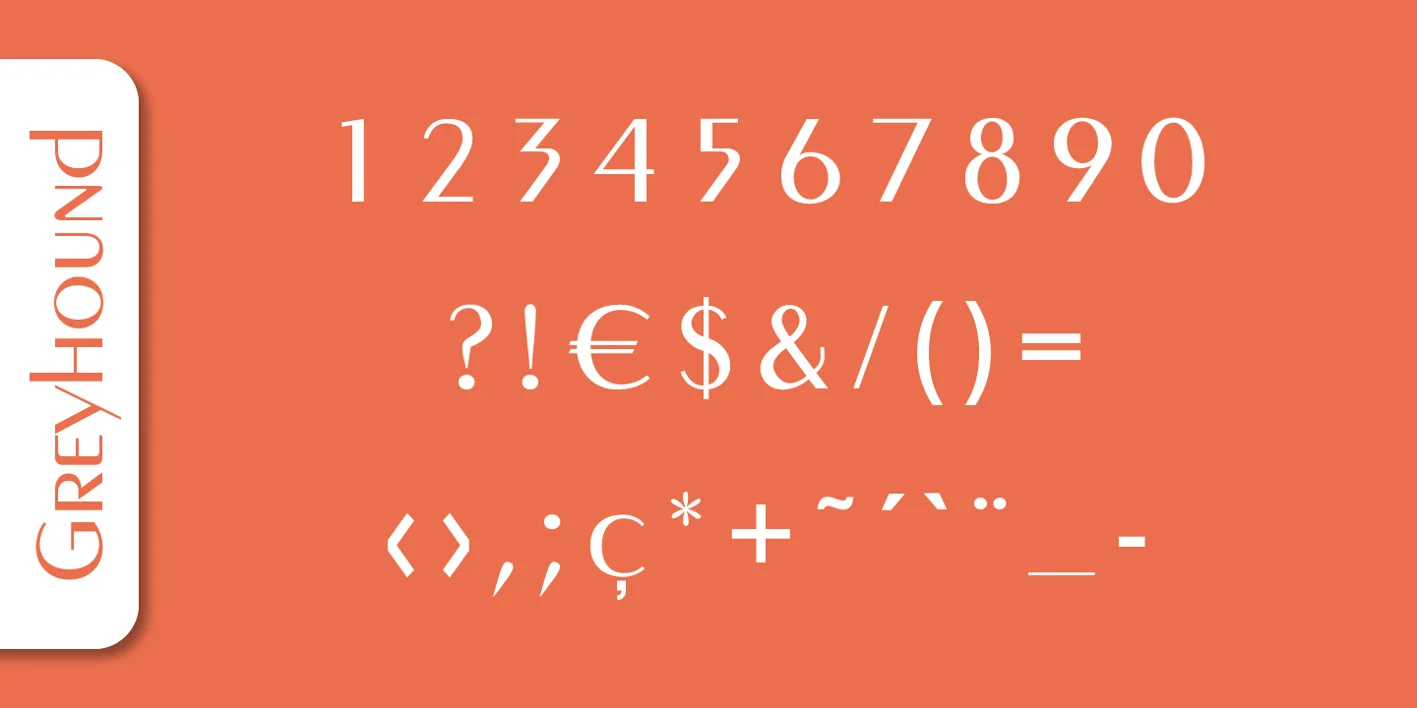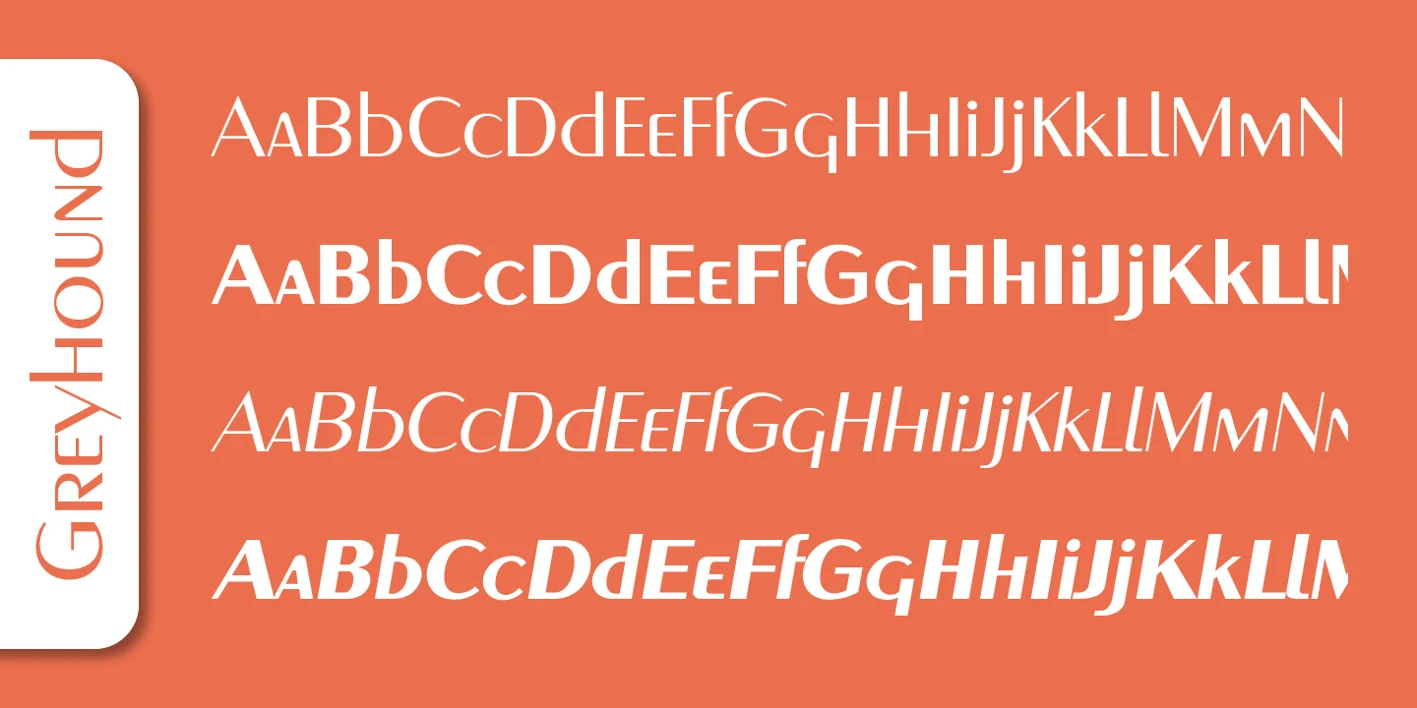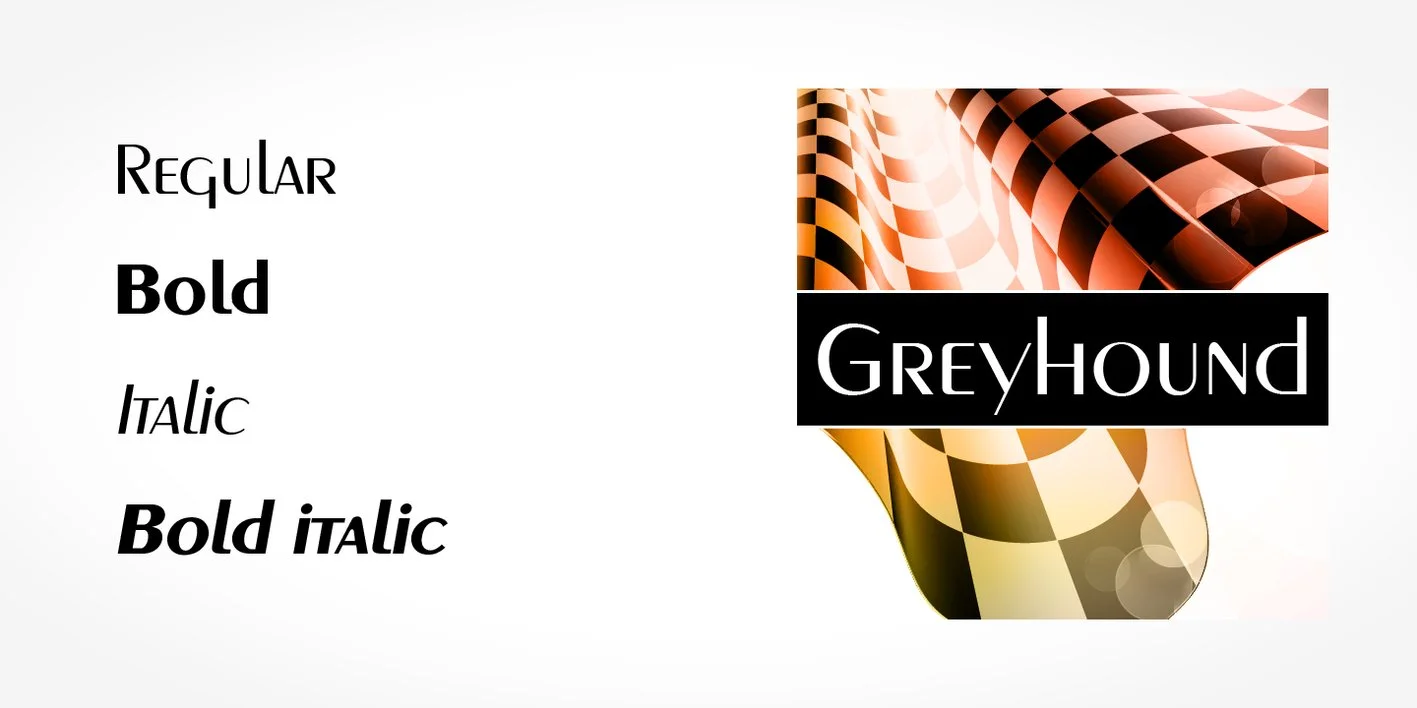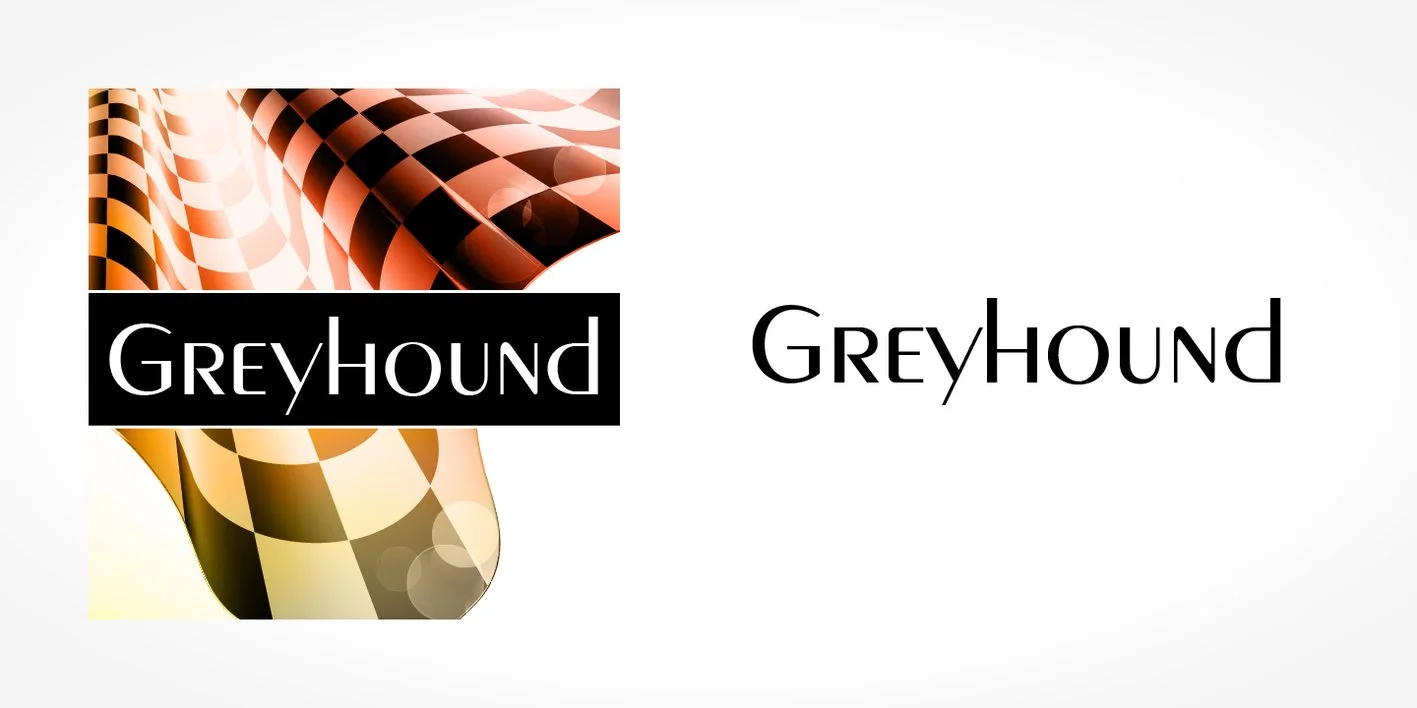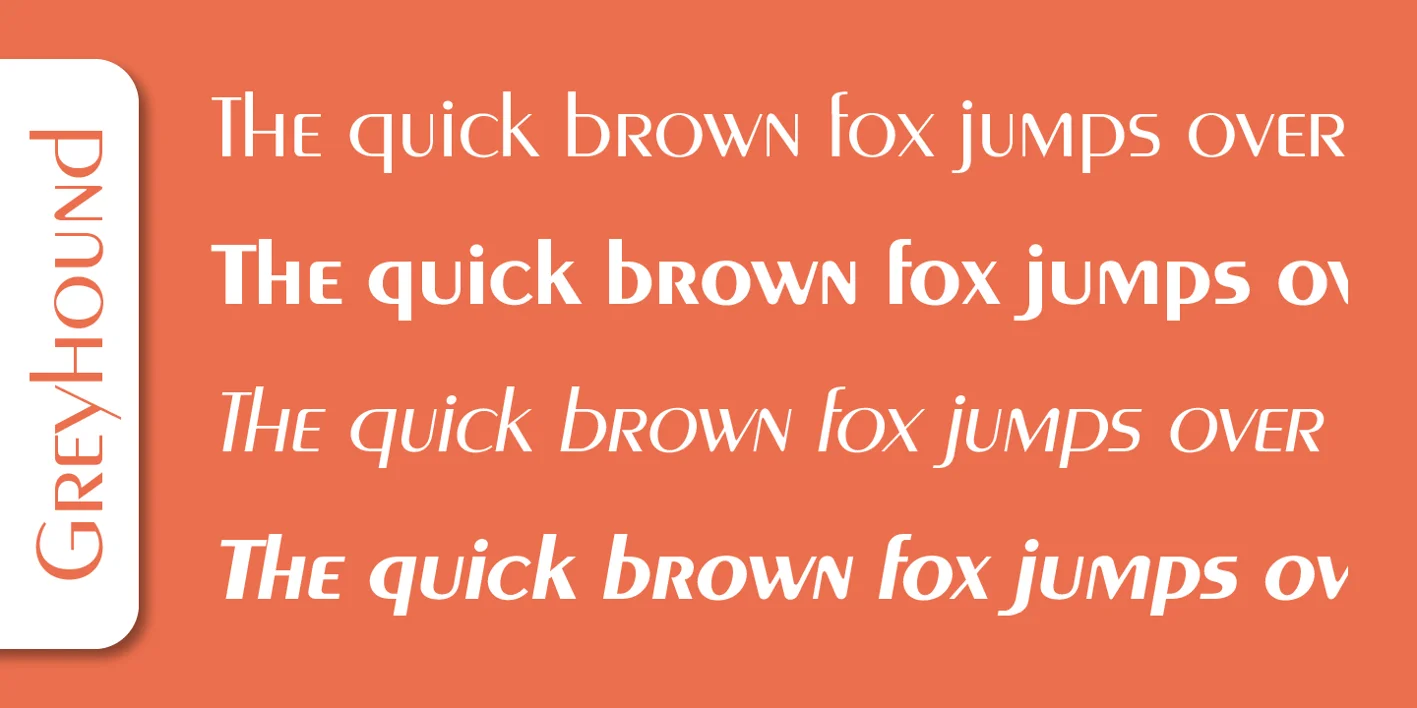
Greyhound Font
Greyhound is a thoughtfully constructed typeface that performs equally well in display and body text settings.
Clean terminals, harmonious curves, and precise spacing give the typeface an authoritative yet approachable quality.
Whether used for headlines, subheadings, or accent text, it holds its character at any size and across all media.